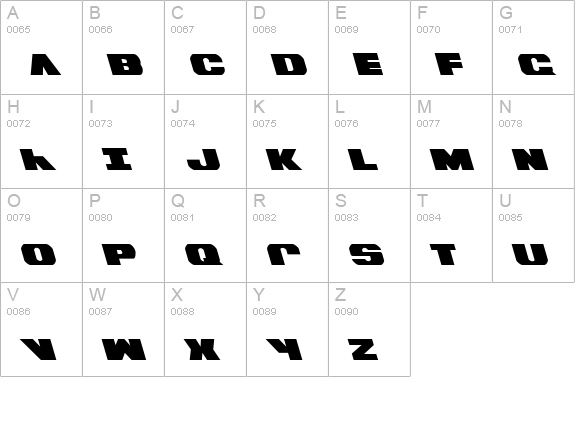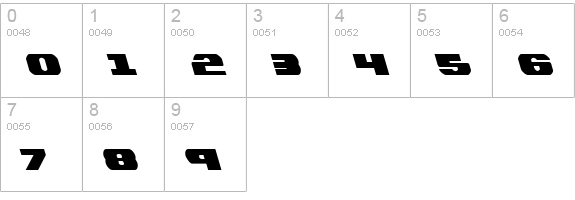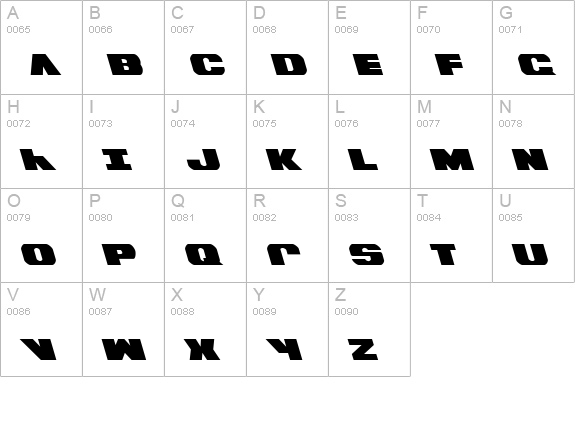
Bummer Leftalic font is a stylish and modern typeface that exudes elegance and sophistication. Its unique slanted design adds a touch of creativity to any project, making it perfect for branding, marketing materials, and more. The sleek curves and sharp angles of Bummer Leftalic font give it a distinct personality that sets it apart from other fonts. The best part? Bummer Leftalic font is available for free download at FontsMarket.com. Whether you're a designer looking to add a fresh twist to your creations or a business owner in need of a standout font for your brand, Bummer Leftalic font is the perfect choice. Don't miss out on this opportunity to elevate your design projects with this stunning and versatile font. Download Bummer Leftalic font today and unleash your creativity!